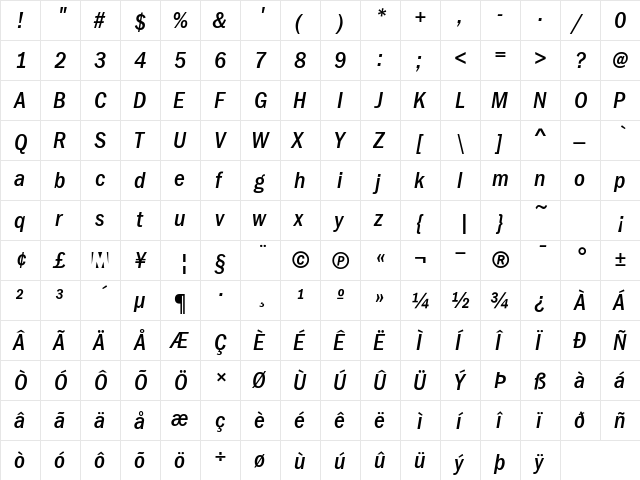
MVGothicCond BoldItalic Font Preview
Design Context for MVGothicCond Typeface
MVGothicCond has the quiet confidence of well-executed sans-serif typography: versatile, unobtrusive, and dependable at any size. The slanted form adds forward momentum and visual energy. The heavy weight commands attention and anchors typographic hierarchies. The condensed width makes it efficient for tight spaces without sacrificing legibility.
A strong choice for UI design, app interfaces, bold signage, and corporate brand systems.
Font Pairing: Use MVGothicCond for headlines alongside a lighter-weight sans or serif for body copy to establish clear visual hierarchy.
Pro Tip: Try MVGothicCond in all-caps with moderate tracking for navigation and label copy — it performs well in systematic UI contexts.